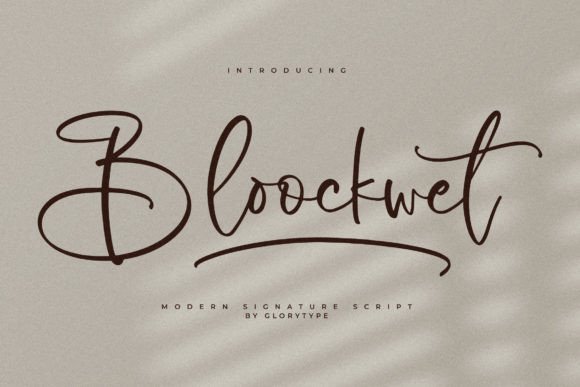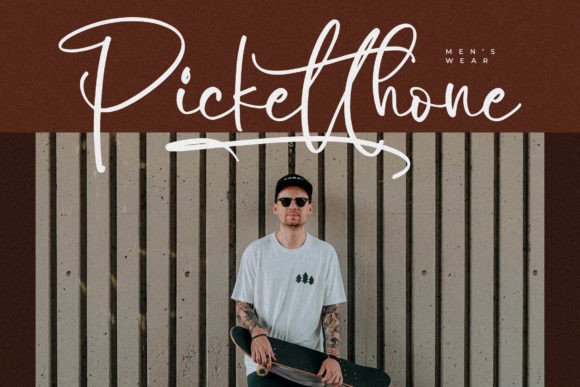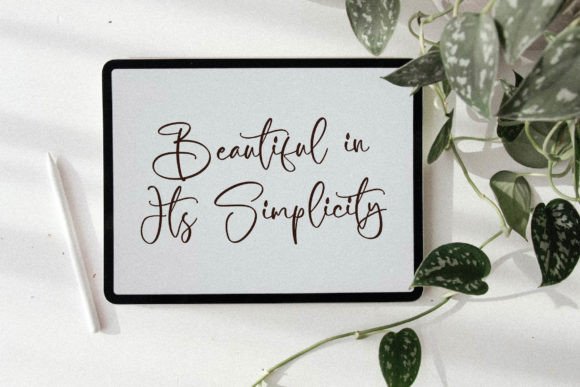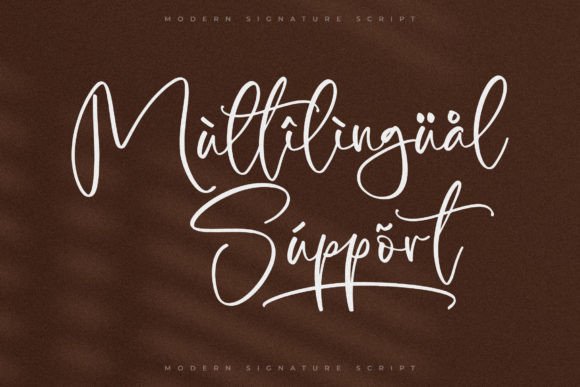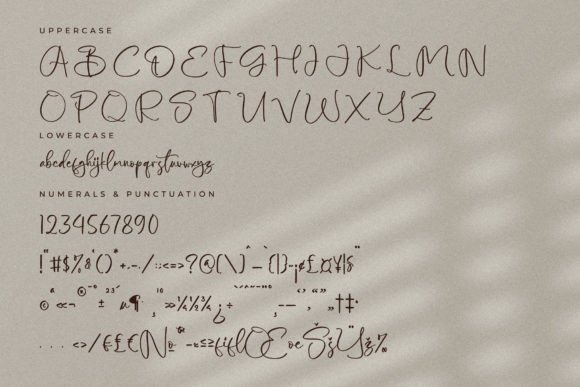
Modern Signature Font – Bloockwet
Bloockwet is a modern signature font designed to add a personal, luxurious touch to all your creative projects. With its smooth strokes and natural handwritten feel, Bloockwet is the ideal choice for designers who want their typography to stand out with elegance and sophistication.
A Signature Style with a Modern Twist
Crafted to emulate real handwriting, Bloockwet offers a dynamic script style that feels both personal and professional. The font includes beautiful ligatures and stylistic alternates, making every composition feel organic and unique. Its modern edge makes it the perfect typeface for branding and high-end products.
Whether you’re a digital artist, marketer, or hobbyist, this modern signature font provides a beautiful balance between flow and clarity—ideal for eye-catching visuals.
Ideal for Various Creative Projects
Bloockwet is highly versatile and suitable for a wide range of design needs. Here’s where it truly shines:
💼 Business branding and personal logos
📚 Book and eBook covers
🛍️ Product packaging and tags
🖼️ Wall art, posters, and signage
📷 Photography watermarks and studio names
💌 Invitations for weddings or events
📱 Social media graphics and digital planners
🖋️ Stylish name cards and letterheads
No matter the occasion, this modern script will elevate your design to the next level.
Why Choose the Bloockwet Font?
There are plenty of script fonts available, but Bloockwet stands out because:
✅ It has a natural, signature-like flow
✅ Its modern aesthetic matches current design trends
✅ It’s easy to integrate into almost any branding or artwork
✅ It supports both print and digital use
Designers and business owners alike find it useful when aiming for that classy, personal feel.